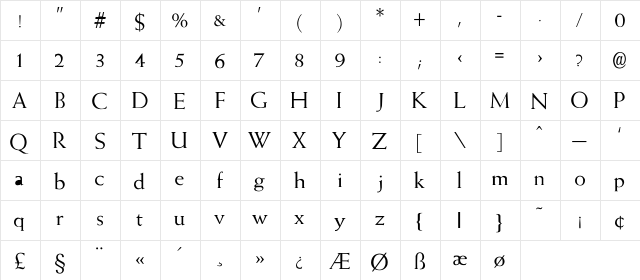
Weiss-Normal Regular
Design Context for Weiss-Normal Typeface
Weiss-Normal offers clean, dependable letterforms without strong stylistic allegiance, making it a practical choice for designers who need flexibility.